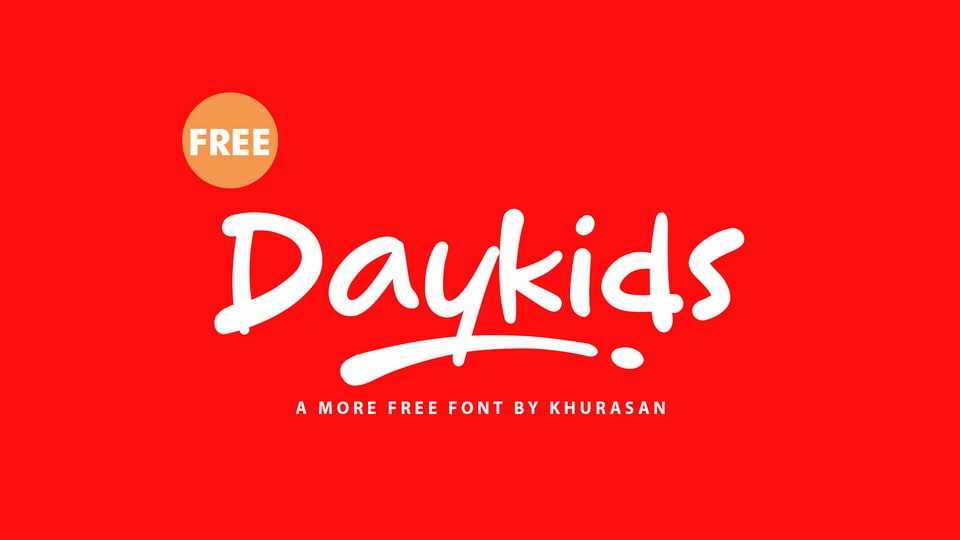
Download Daykids font, a handwritten typeface that effortlessly blends casual charm with playful elegance. Each letter dances across the page with an organic flow, capturing the essence of spontaneous handwriting.